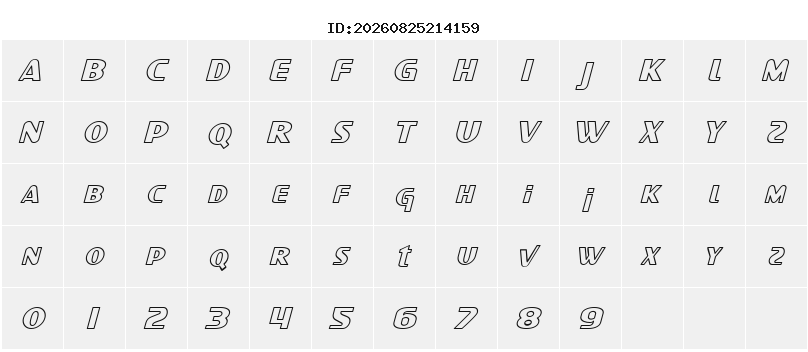
SF Intellivised Outline Preview
• Font Name: SF Intellivised Outline
• Font ID: ShyFontsTypeFoundry: SF Intellivised Outline Italic: 1999
• Full Font Name: SF Intellivised Outline Italic
• PostScript Name: SFIntellivisedOutline-Italic
About SF Intellivised Outline.ttf
SF Intellivised Outline.ttf is a modern, elegant sans-serif font designed for ultimate readability and visual harmony. Perfect for branding, headlines, web design, and print materials.